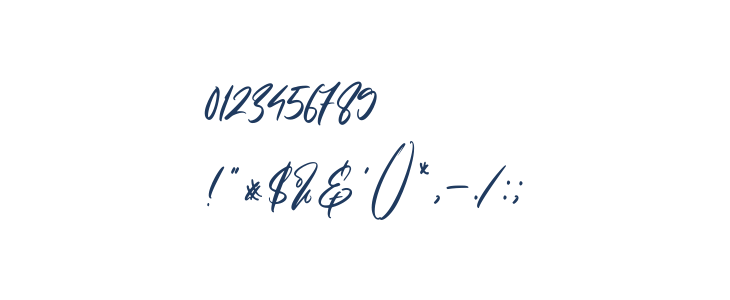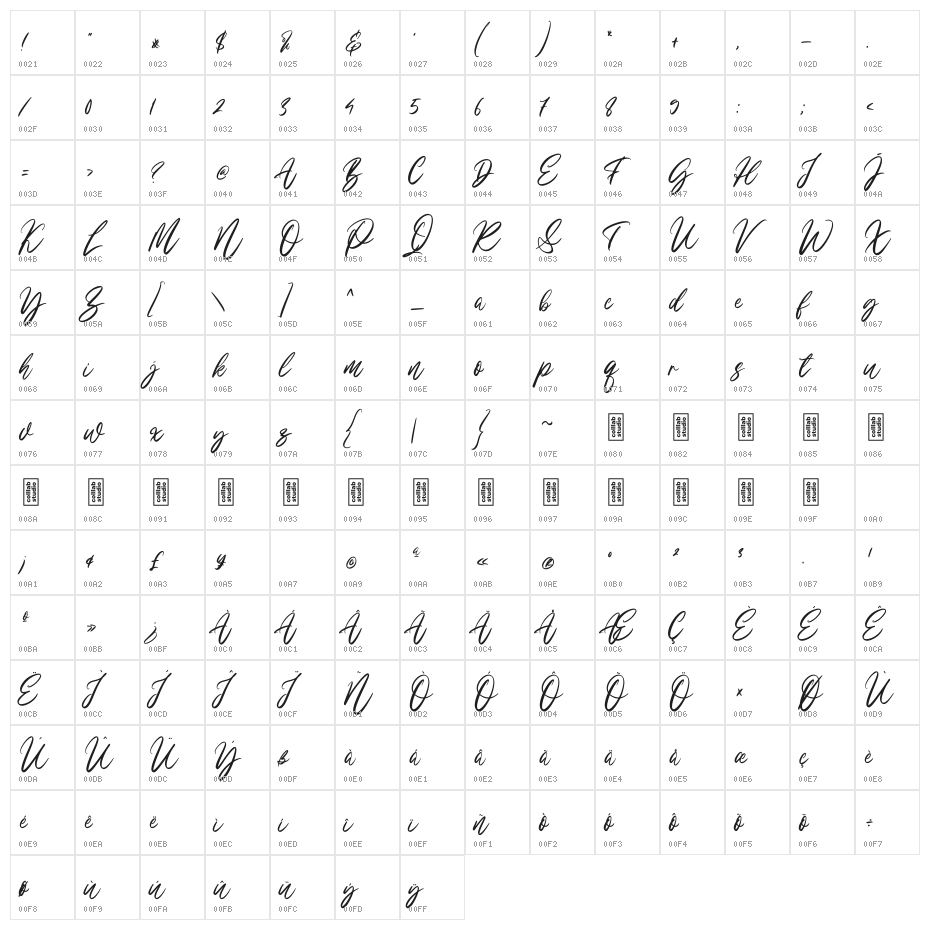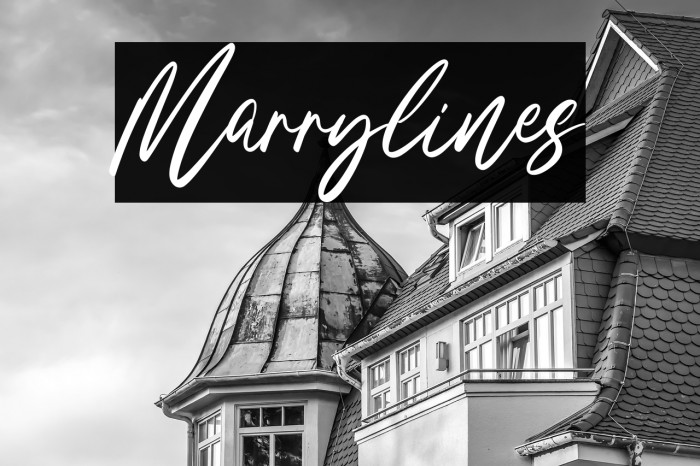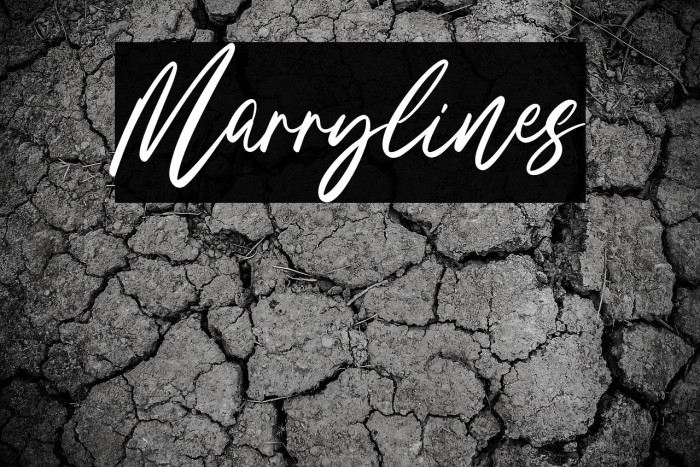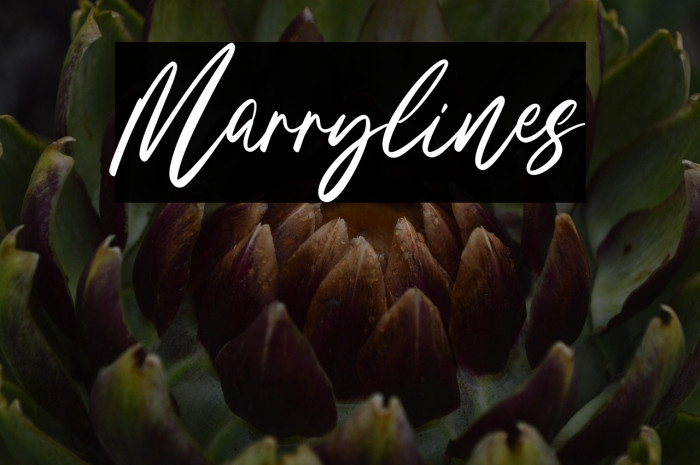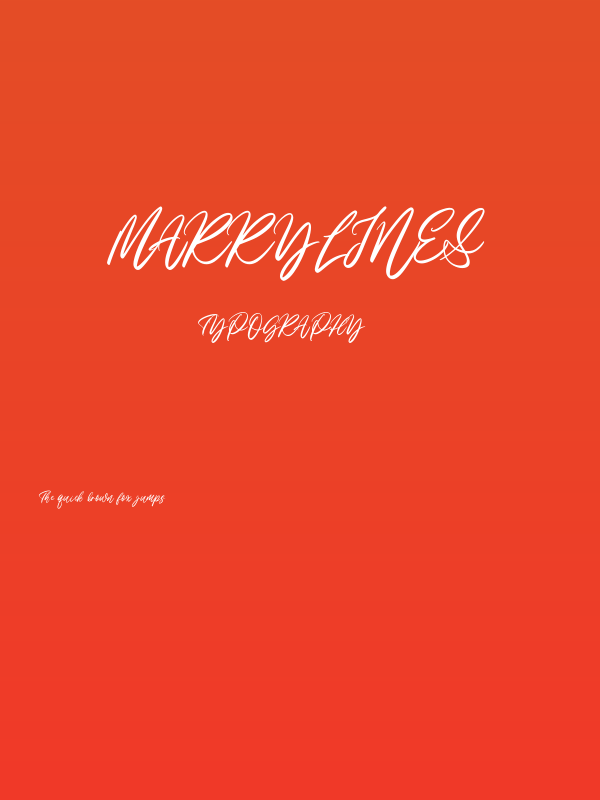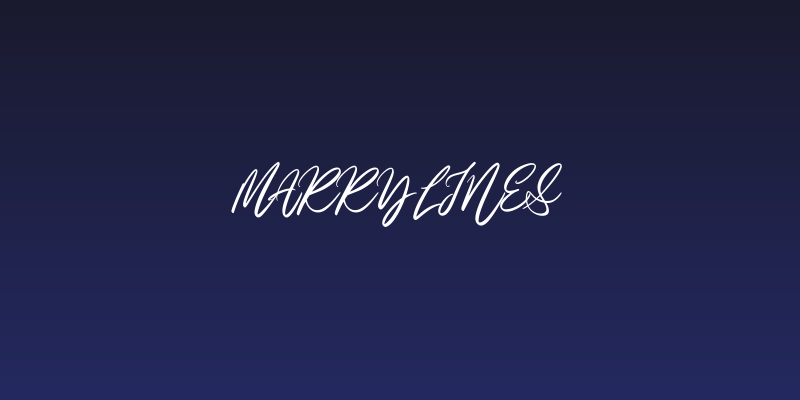
Marrylines Font
Marrylines Description
This font exudes a sense of elegance and fluidity, characterized by its cursive script style. The letters are interconnected, creating a seamless flow that mimics natural handwriting. The strokes are bold and confident, with a slight slant that adds to its dynamic appearance. The uppercase letters are particularly ornate, featuring loops and flourishes that enhance their decorative appeal. The lowercase letters maintain a consistent style, ensuring readability while retaining their artistic flair. Numbers and special characters are designed to match the overall aesthetic, making this font versatile for various uses.